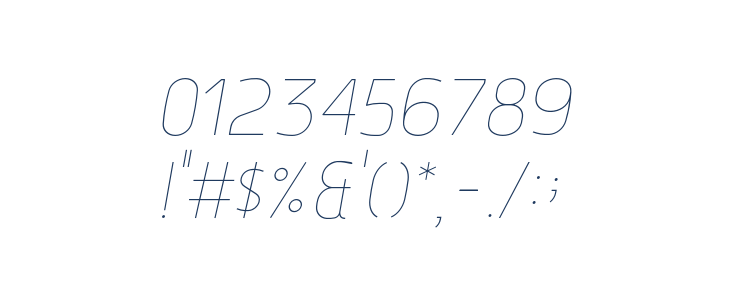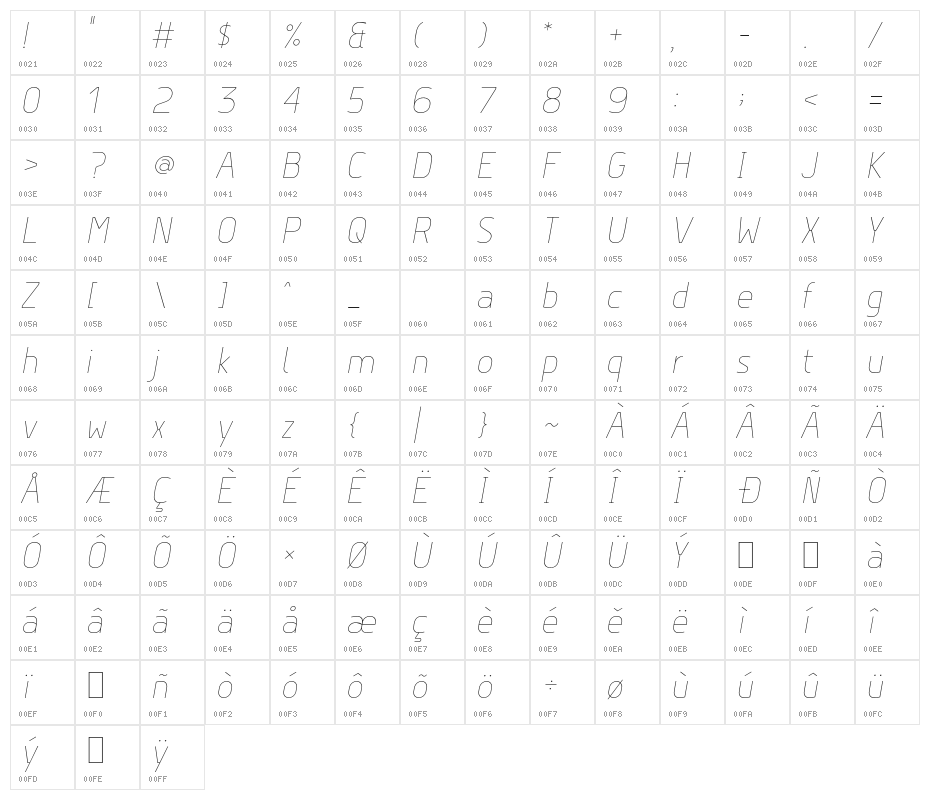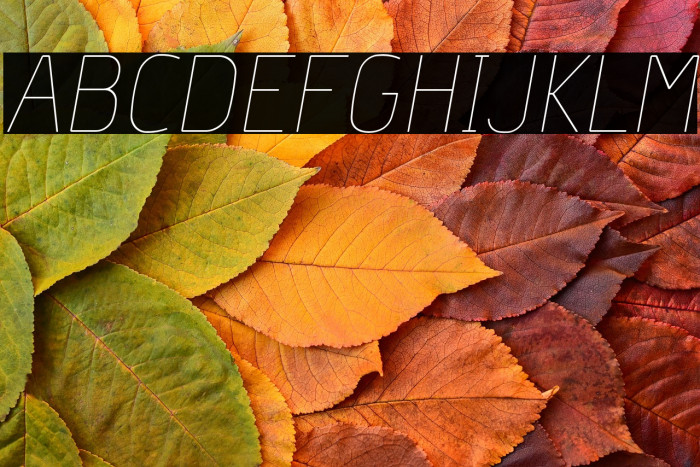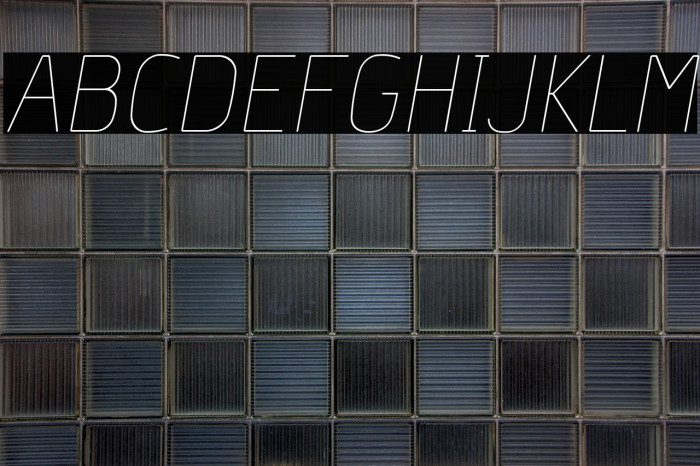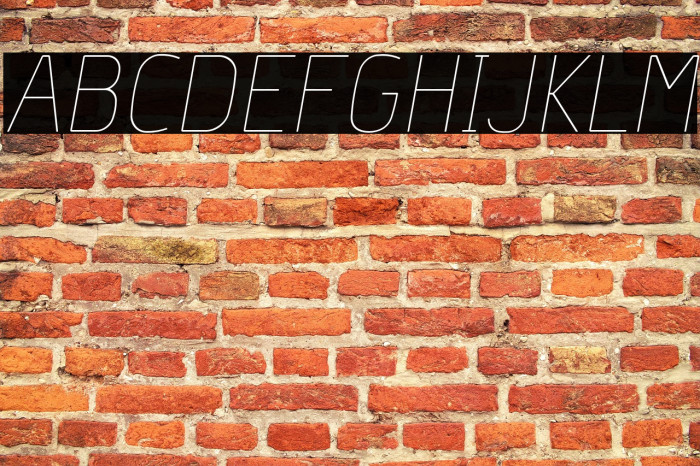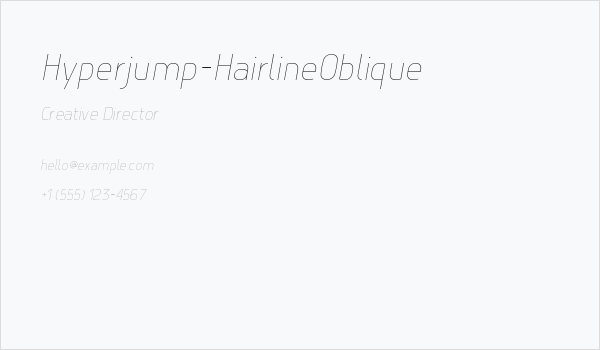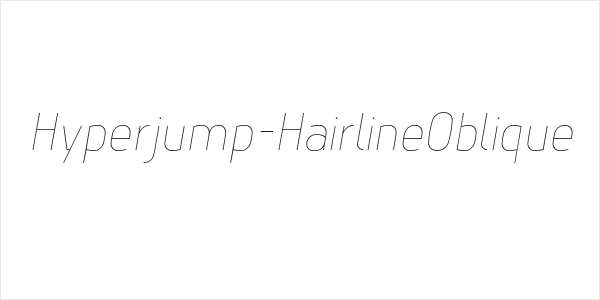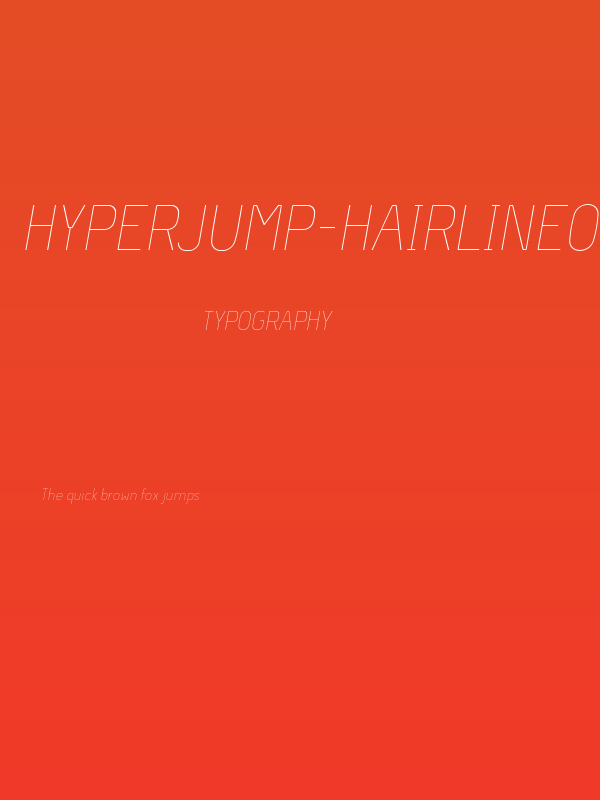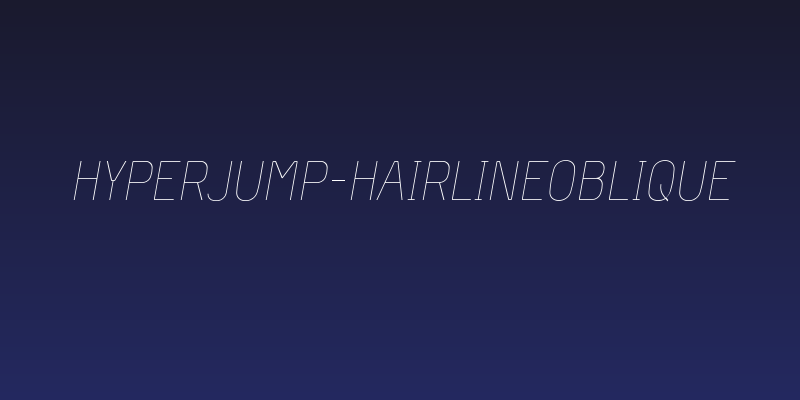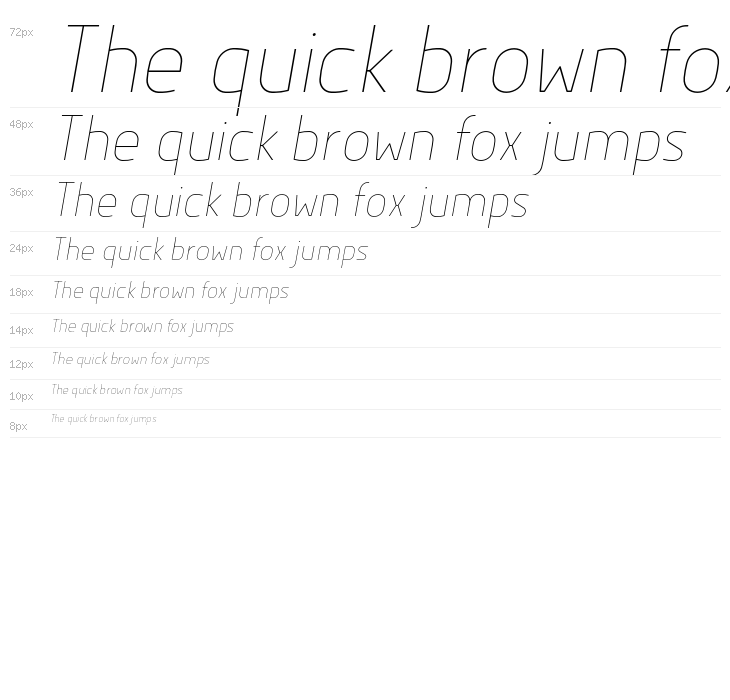
Hyperjump-HairlineOblique Font
Hyperjump-HairlineOblique Description
This font features a sleek, modern design with a hairline weight that gives it a delicate and sophisticated appearance. The oblique style adds a dynamic and forward-leaning character, enhancing its contemporary feel. Each letter is crafted with precision, maintaining a consistent thinness throughout, which contributes to its elegant and airy look. The uppercase and lowercase letters are well-balanced, and the numerals are clear and easy to read. Special characters are included, maintaining the same thin and refined aesthetic. This font is ideal for projects that require a touch of modernity and elegance.
| Proposed Projects | Ideal for modern branding, minimalist designs, fashion magazines, and elegant invitations. |